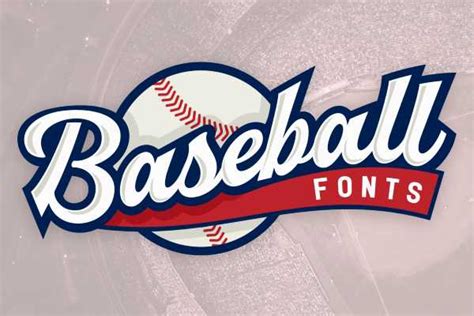
Free Baseball Fonts With Tails: Download Now!
Hey guys! Are you looking to add some sporty flair to your designs? Specifically, are you on the hunt for baseball fonts with tails , and even better, are you hoping to snag them for free ? Well, you’ve come to the right place! In this article, we’ll dive into the world of baseball fonts, focusing on those cool fonts with tails (also known as swashes or extending strokes) that give a design that extra bit of dynamic movement and vintage feel. We’ll explore why these fonts are so popular, where you can find them, and how to use them effectively in your projects. Let’s get started!
Why Choose Baseball Fonts with Tails?
So, what’s the big deal with baseball fonts with tails ? Why are designers and sports enthusiasts alike so drawn to them? The answer lies in the history and aesthetic appeal of these fonts. These fonts evoke a sense of nostalgia, tradition, and the classic American pastime. The tails, swashes, or extending strokes add a touch of dynamism and personality, making the font stand out and grab attention.
These fonts are incredibly versatile and can be used in a wide range of design projects. Think about logos for sports teams, branding for athletic apparel, posters for baseball games, or even personalized gifts for baseball fans. The possibilities are endless! The tails not only enhance visual appeal but also contribute to readability and memorability. A well-designed baseball font with tails can instantly communicate the spirit of the sport: energy, excitement, and a touch of vintage charm.
Many designers favor baseball fonts because they bring a unique blend of retro aesthetics and modern appeal. This makes them perfect for projects that aim to capture a timeless feel while still remaining relevant and engaging for today’s audience. The specific curves and sharp edges of the letters, combined with the distinctive tails, create a visual impact that’s hard to ignore. Imagine a baseball team’s logo emblazoned across merchandise, instantly recognizable and synonymous with the team’s brand. That’s the power of a well-chosen baseball font with tails. When used correctly, these fonts can transform an ordinary design into something truly special and memorable.
Where to Find Free Baseball Fonts with Tails
- Fontspace: Similar to DaFont, Fontspace offers a vast library of free fonts. You can easily search for “baseball” or “script” fonts and filter by those with tails or swashes. Again, remember to check the licensing terms before using any font in your projects.
When searching for free baseball fonts , always double-check the license. Some fonts are free for personal use only, while others can be used commercially. Make sure you understand the terms of use to avoid any copyright issues down the road. Also, keep in mind that free fonts might not always be as polished or complete as paid fonts. They may have fewer glyphs (characters) or lack certain features. However, with a little searching, you can definitely find some amazing free options that will work perfectly for your project.
How to Effectively Use Baseball Fonts with Tails
Okay, you’ve found the perfect baseball font with tails . Now what? Here are some tips on how to use these fonts effectively to create stunning designs:
- Consider the Context: Think about the overall tone and message of your design. Is it meant to be playful and fun, or serious and professional? Choose a font that aligns with the context. A heavily stylized font with elaborate tails might be perfect for a kids’ baseball team, but it might not be the best choice for a more formal sports brand.
- Pair Wisely: Don’t let your baseball font stand alone! Pair it with a complementary sans-serif or serif font for body text or supporting elements. A clean, simple font can provide a nice contrast to the more decorative baseball font, ensuring that your design remains balanced and readable. Avoid pairing multiple script or display fonts together, as this can create a cluttered and confusing look.
- Use Sparingly: Remember, less is often more. Baseball fonts with tails are eye-catching, so you don’t need to overuse them. Use them strategically for headlines, logos, or short phrases. Overusing them can diminish their impact and make your design feel overwhelming.
- Adjust Kerning and Tracking: Kerning refers to the spacing between individual letters, while tracking refers to the overall spacing of a group of letters. Pay attention to these settings to ensure that your text looks balanced and legible. Baseball fonts with tails often require some manual kerning adjustments to achieve a polished look. You can use the kerning and tracking tools in your design software (like Adobe Illustrator or Photoshop) to fine-tune the spacing.
- Experiment with Colors and Effects: Don’t be afraid to play around with different colors and effects to enhance your baseball font. Consider using classic baseball colors like red, white, and blue, or try adding a vintage texture or shadow to give your design a retro feel. However, be mindful of readability and make sure that your text remains easy to read against the background.
- Ensure Readability: While those tails and swashes are visually appealing, they shouldn’t compromise readability. Make sure that the font is still easy to read, especially at smaller sizes. If the tails are too elaborate or distracting, consider using a slightly simpler version of the font or adjusting the size and placement of the text.
Examples of Baseball Fonts with Tails
To give you some inspiration, here are a few examples of baseball fonts with tails that you might want to check out:
- Varsity Script: A classic baseball font with a strong, athletic feel.
- Playball: A playful script font with smooth curves and elegant tails.
- Bangers: A bold and energetic font with a vintage vibe.
- Pacifico: A casual and friendly script font with flowing tails.
- BlackJack: A stylish and modern script font with sharp, angled strokes.
These are just a few examples, and there are many more great baseball fonts with tails out there. Explore different options and see what works best for your project. Remember to consider the overall aesthetic and message you want to convey, and choose a font that complements your design.
Level Up Your Designs with Free Baseball Fonts!
So there you have it, guys! A comprehensive guide to finding and using free baseball fonts with tails . These fonts are a fantastic way to add a touch of sporty charm to your designs, whether you’re creating logos, posters, or merchandise. Remember to explore the various font resources mentioned above, double-check the licensing terms, and experiment with different styles and techniques to achieve the perfect look.